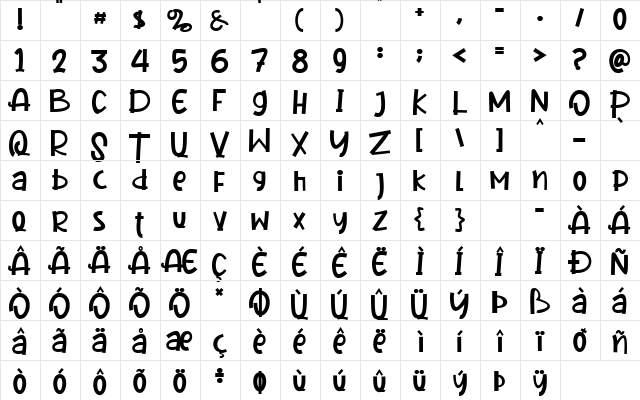
Let's Coorgi Regular
| Designer | Stefani Letter |
Design Context for Let's Coorgi Typeface
Let's Coorgi is a composed and adaptable typeface that performs quietly and consistently across a wide range of design contexts.